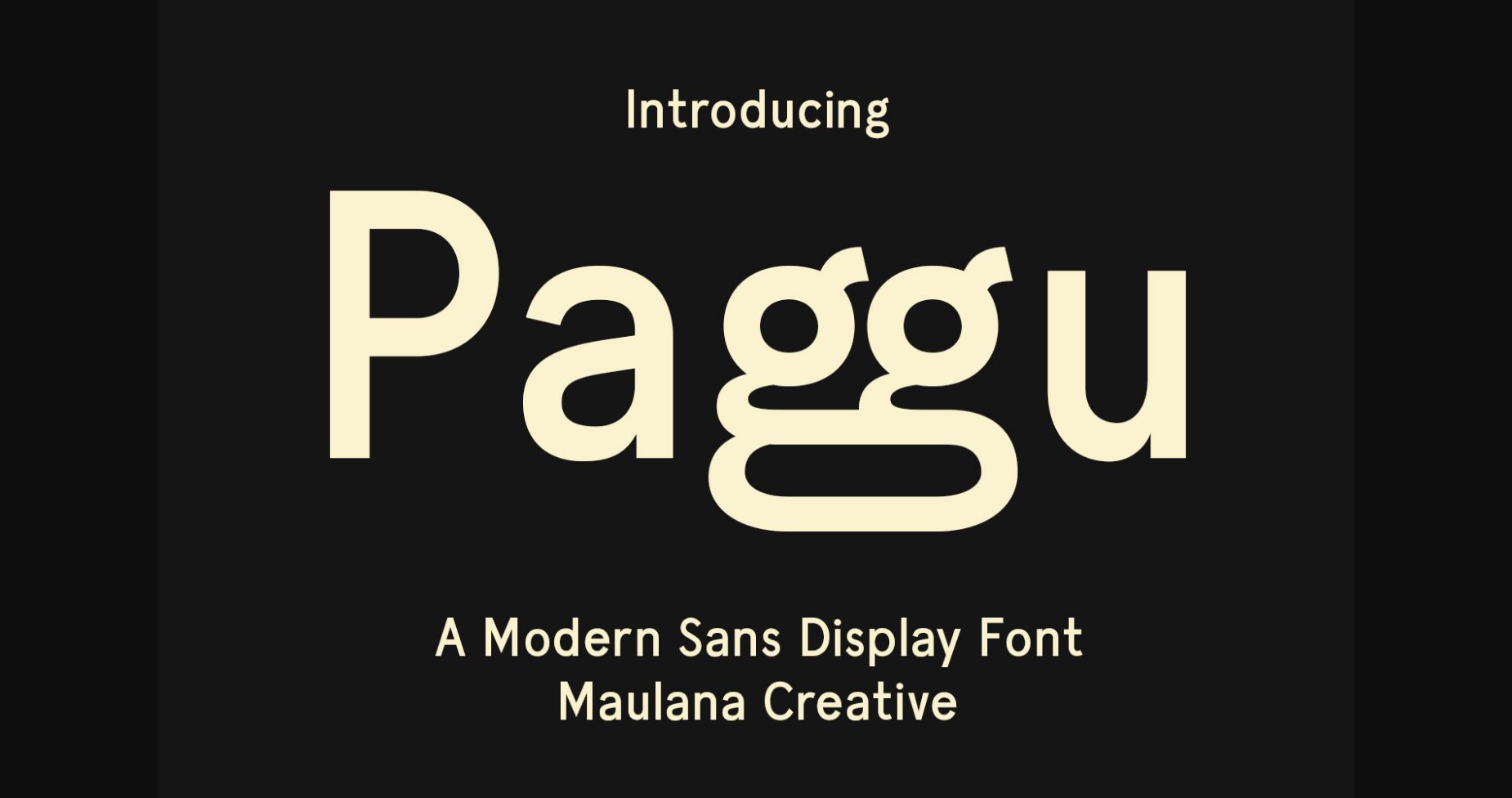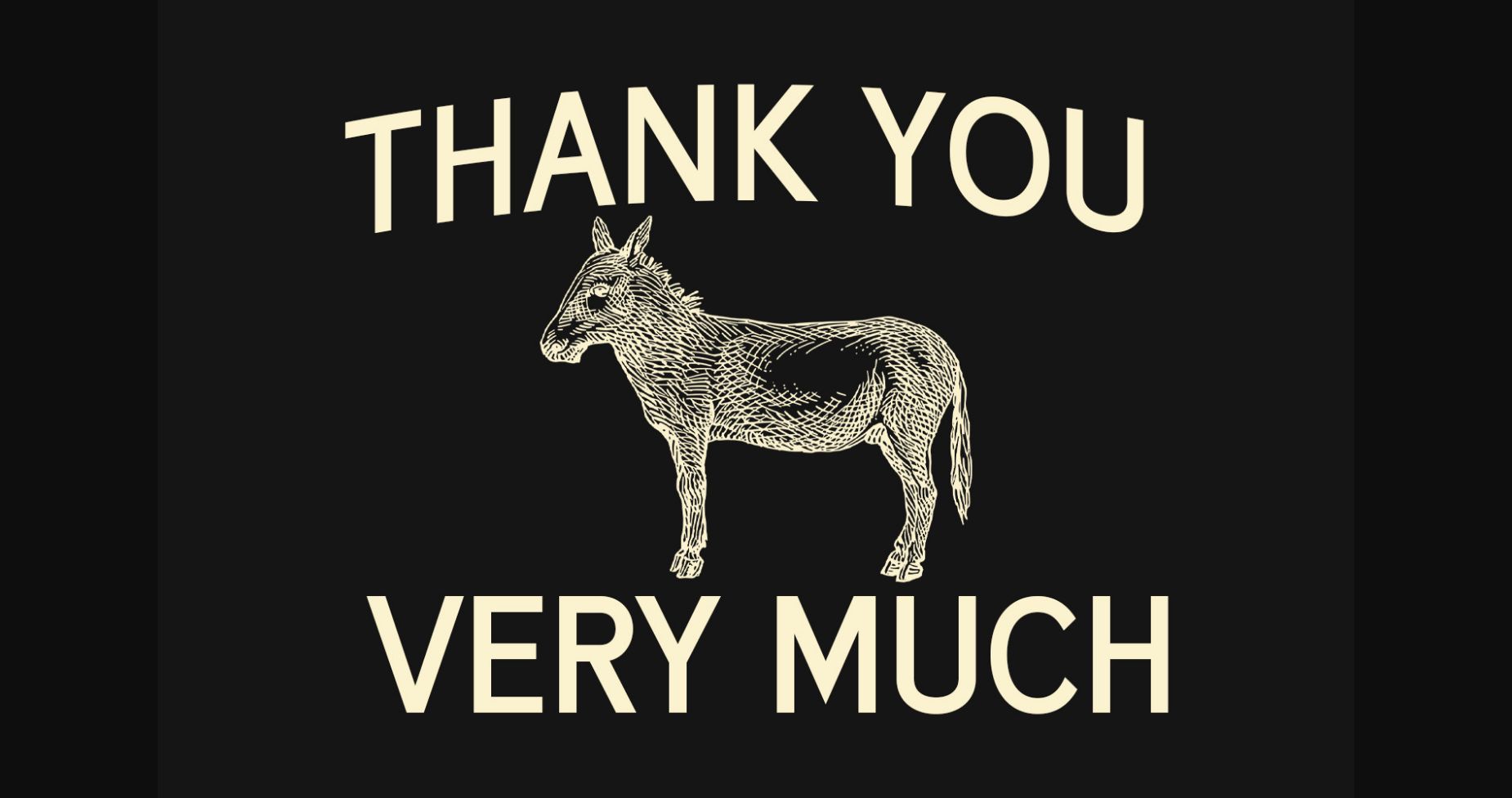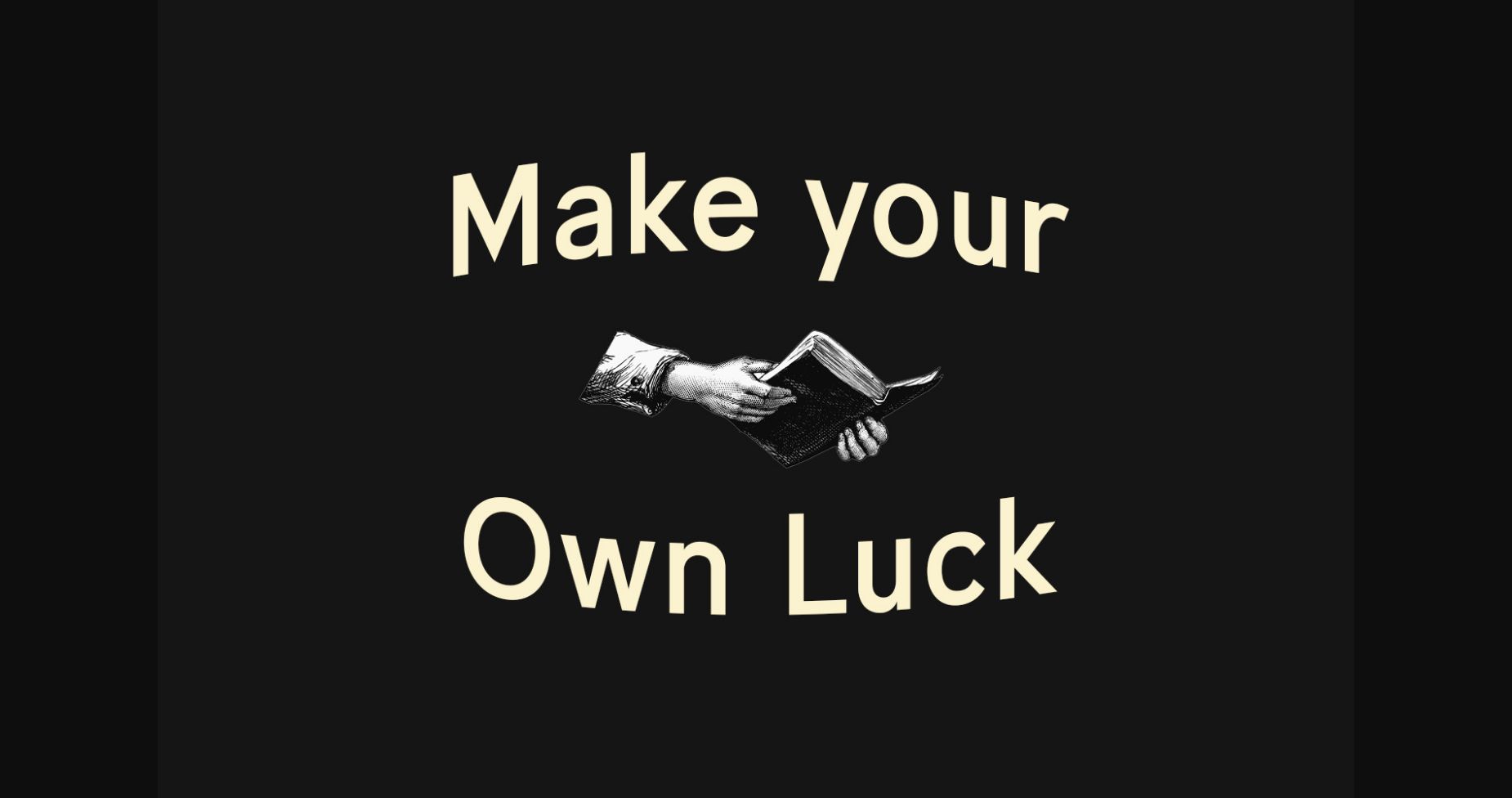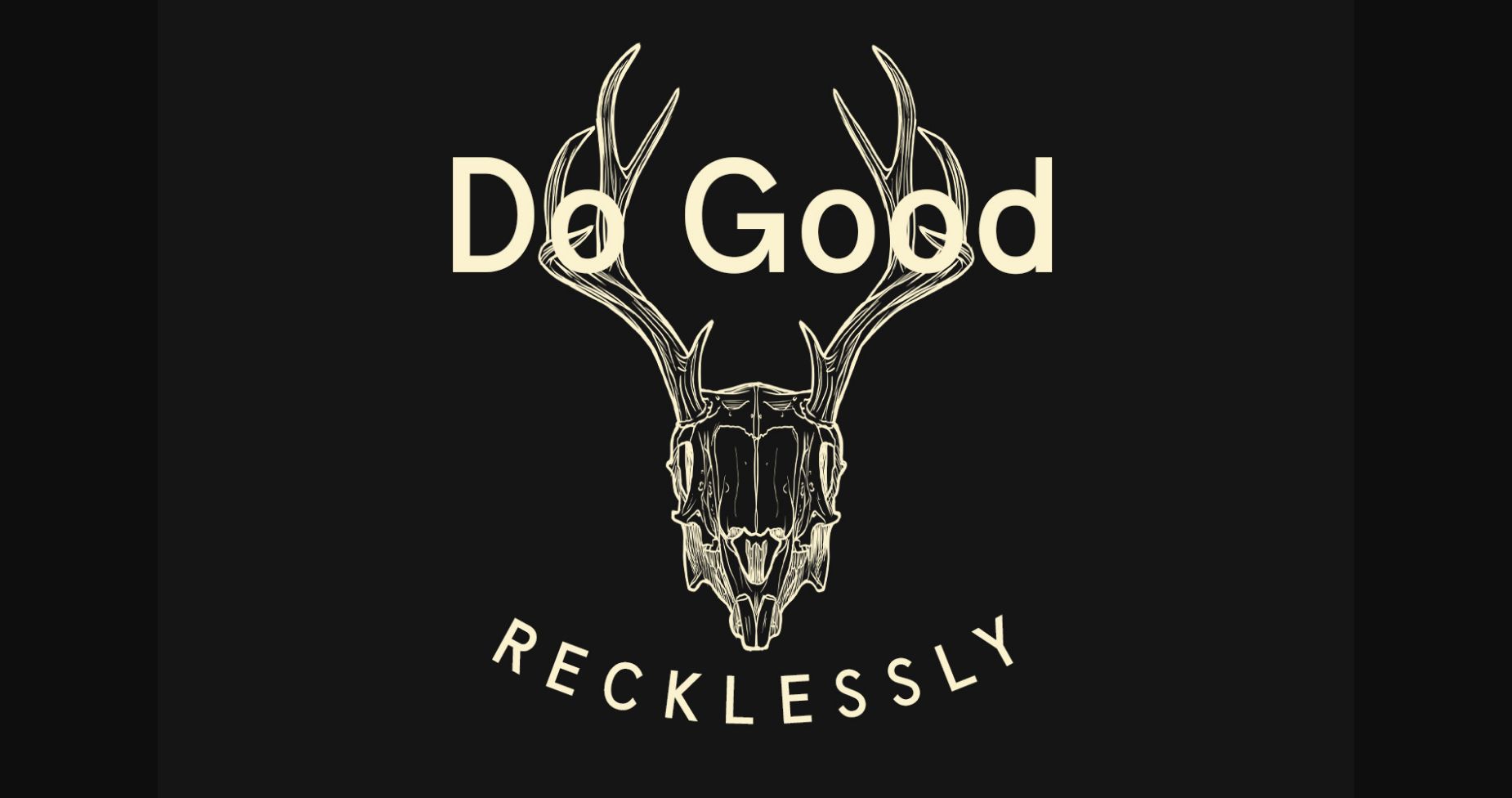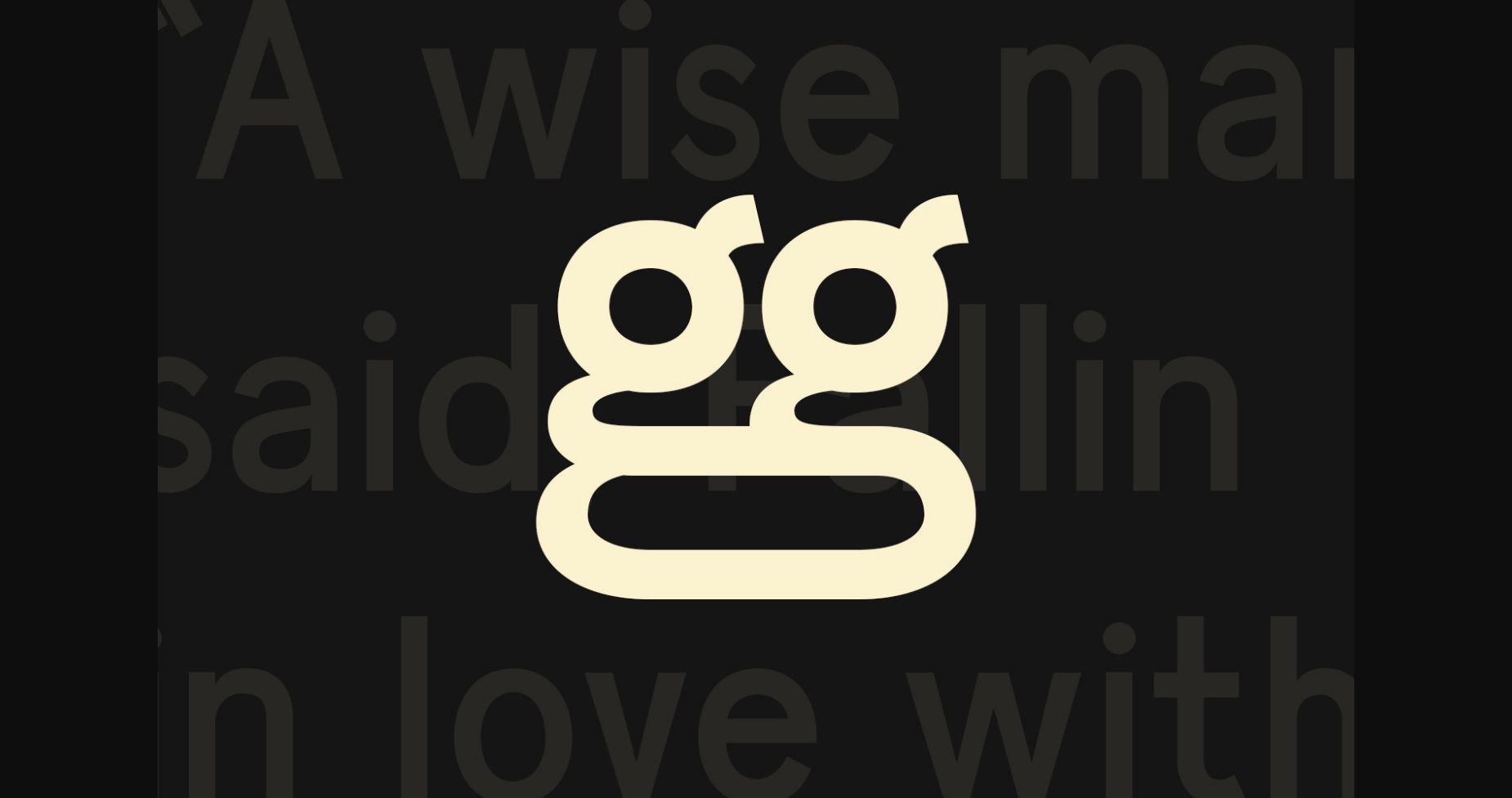
About Paggu Font
Paggu is a quirky and modern sans serif font, masterfully designed to become a true favorite. Print your own decor or use this font to design hats, t-shirts, mugs, or whatever you can think of.